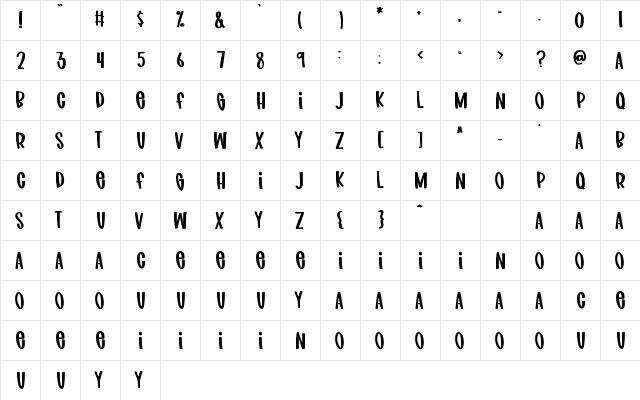
FB-MommaHero1 Regular Font Preview
FB-MommaHero1 Regular
Design Context for FB-MommaHero1 Typeface
FB-MommaHero1 is a composed and adaptable typeface that performs quietly and consistently across a wide range of design contexts.
Pro Tip: Use FB-MommaHero1 in both headline and body roles to test its range before committing to a single application.